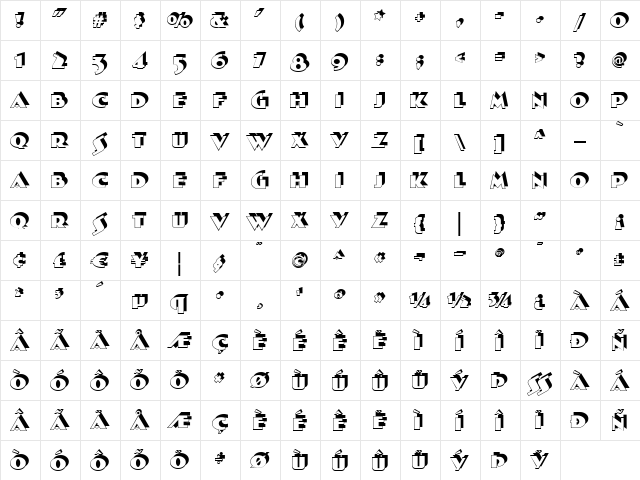
Duck Soup NF Regular
Design Context for Duck Soup NF Typeface
Duck Soup NF is a composed and adaptable typeface that performs quietly and consistently across a wide range of design contexts.